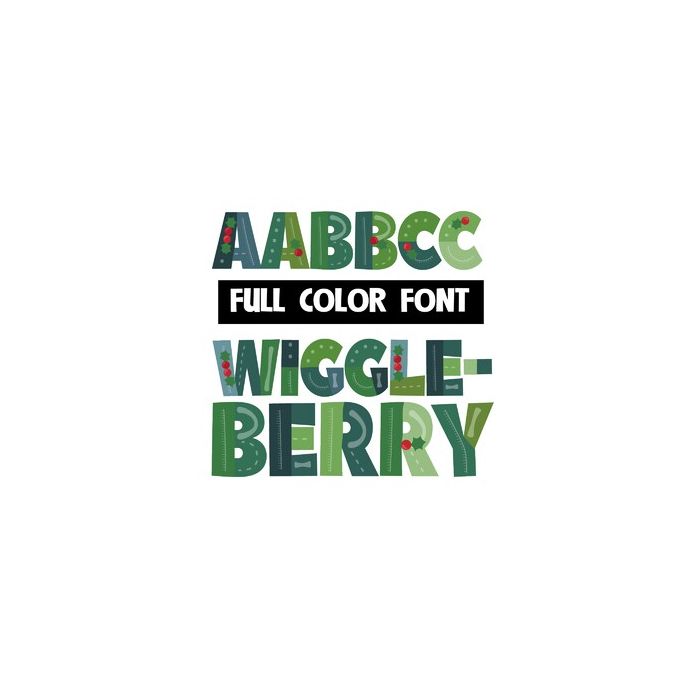
This full-color font features patchwork lettering and holly throughout. This font works best for titles, displays, posters and more. Please note color fonts will show as black in non compatible programs. This font type is compatible with Silhouette Studio.